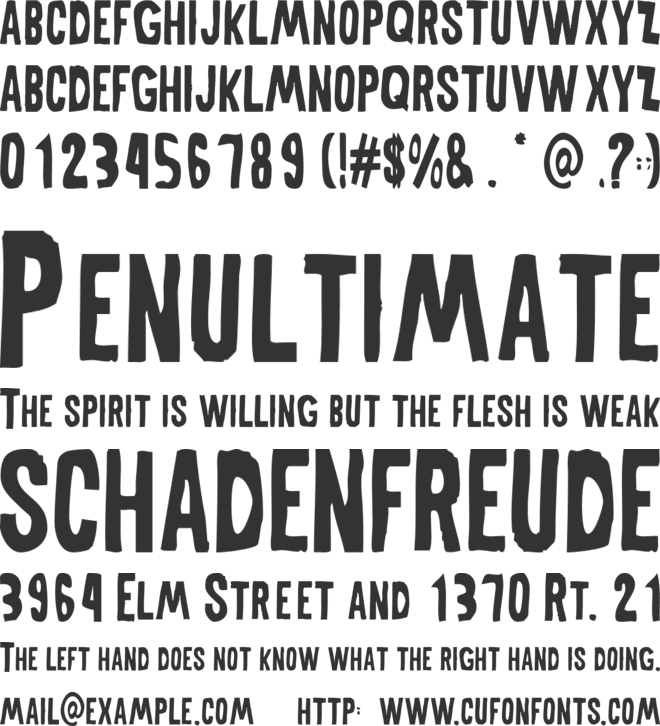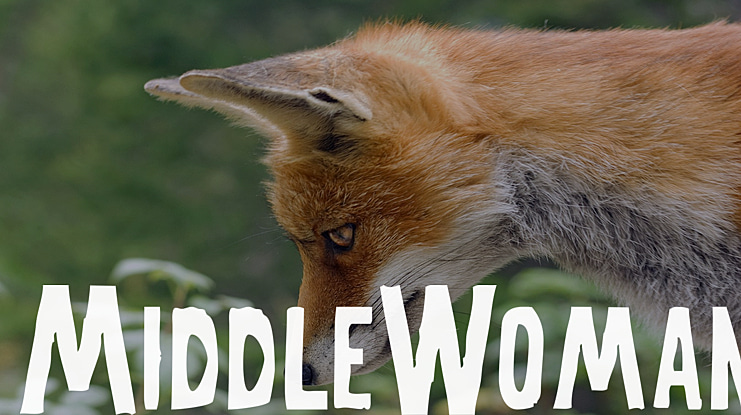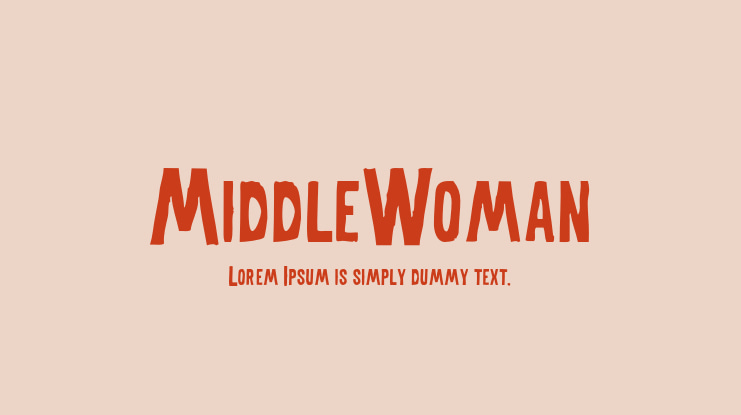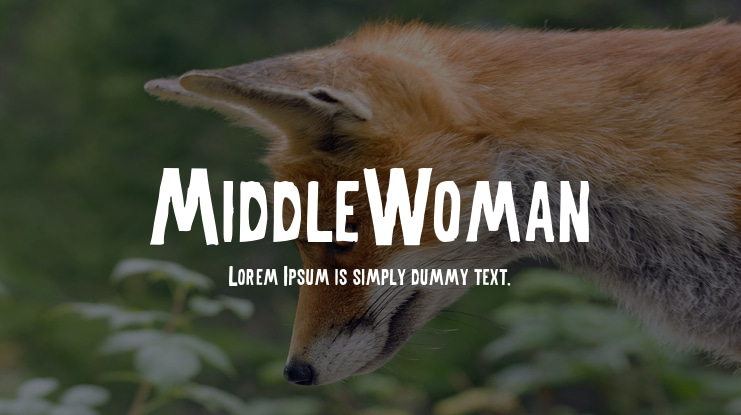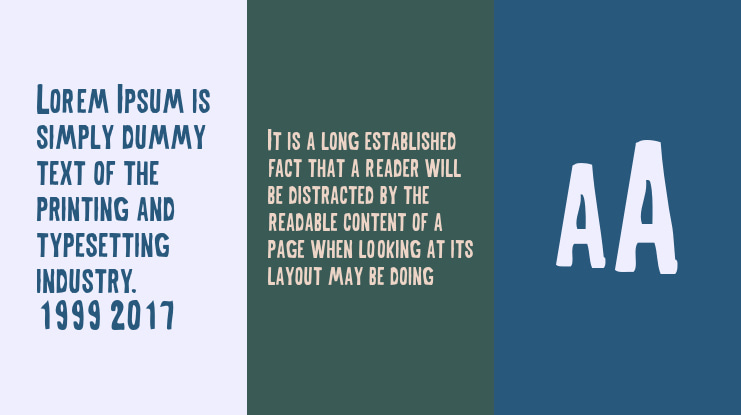
MiddleWoman Font
A minor update with a new license some new glyphs and the spacing reset.
This is a sister font to my other font Middleman though the glyphs are quite different, they do have a similar cut out feel. I think it looks best in Multi Colours see my Jpeg.